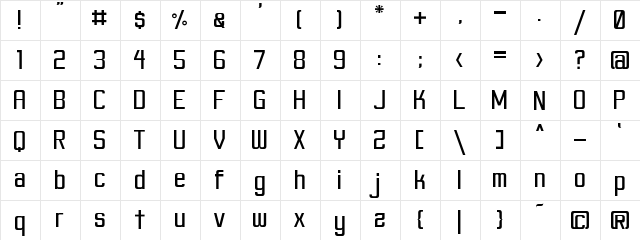
Klapa Regular
Design Context for Klapa Typeface
Klapa takes a measured approach to typography — its balanced proportions and neutral character make it a reliable workhorse for both digital and print work.